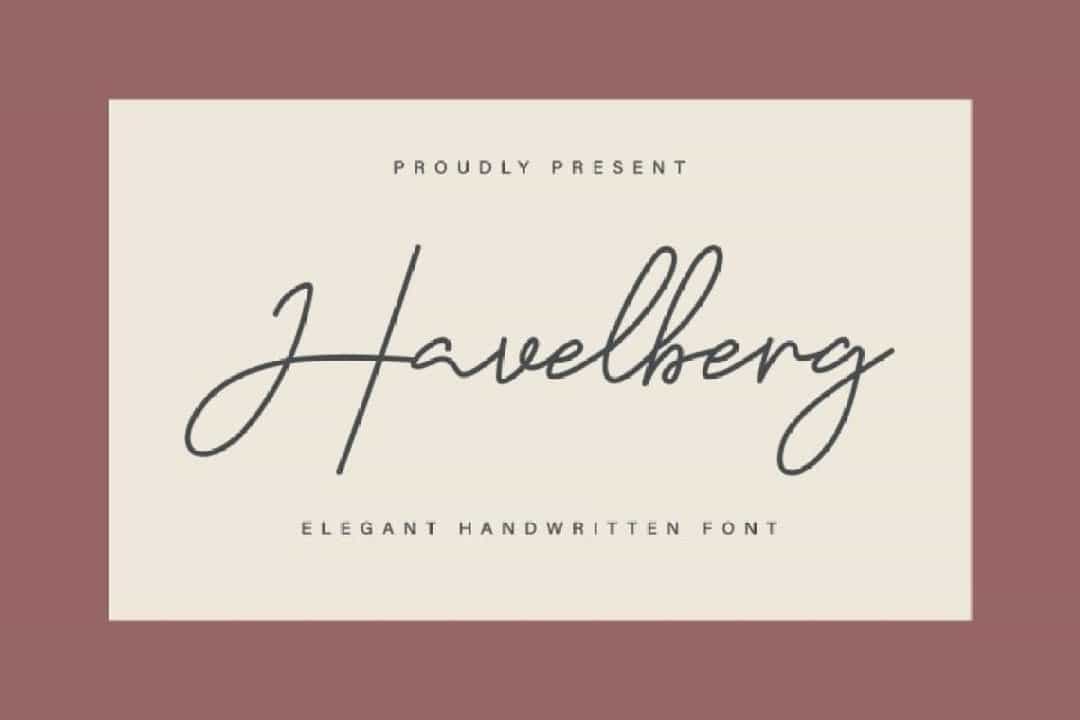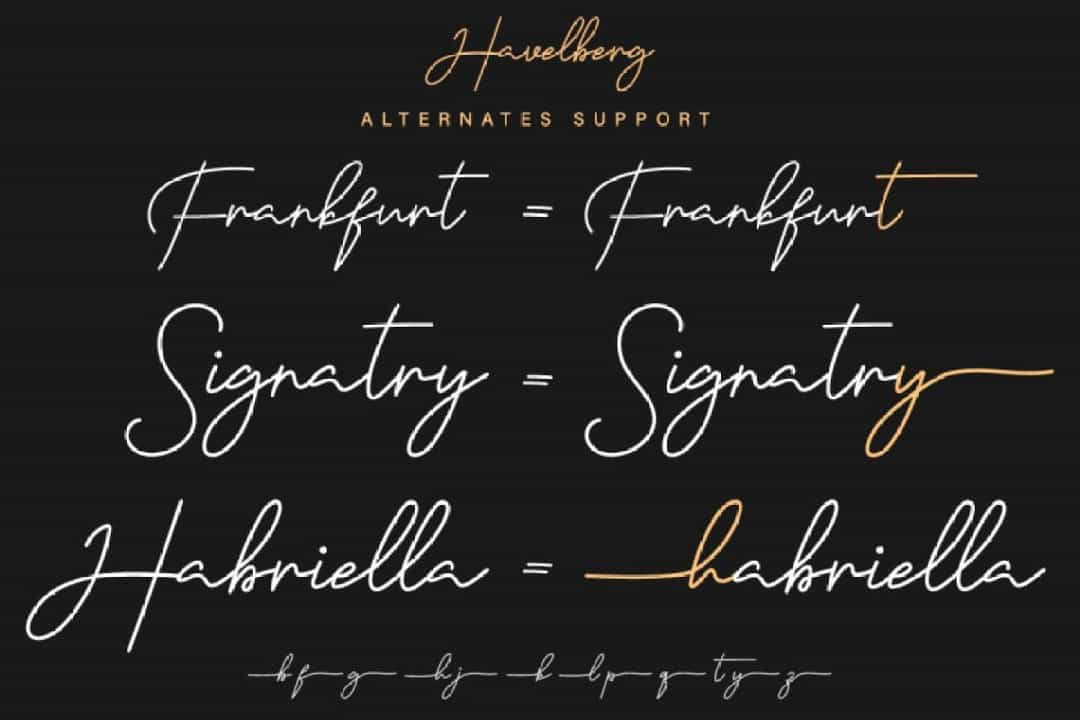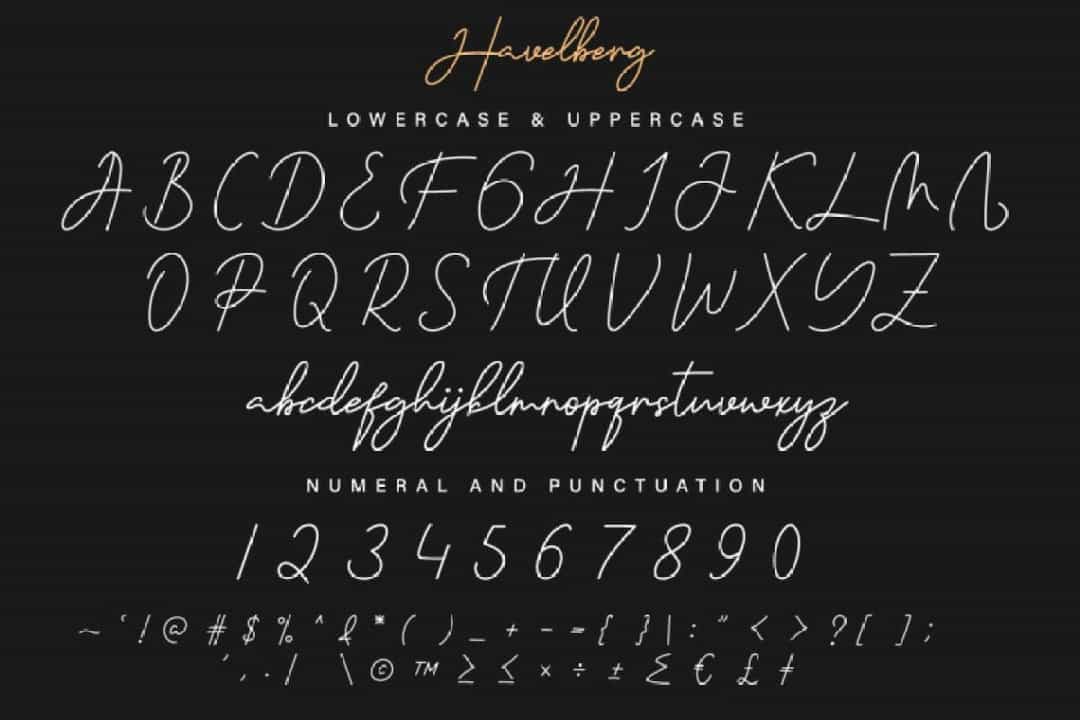
The Havelberg is a script font family containing exquisite handwriting styles that have been hand drawn in our Studio based in Indonesia. This beautiful font was created by Widi Suci and Widi Suci; The Havelberg Signature font has its own natural style which is very well controlled through kerning and spacing to create a beautiful characters set – this makes Havelberg It a delightful font to use and offers elegant, sophisticated, chic, classic and clean style font design.